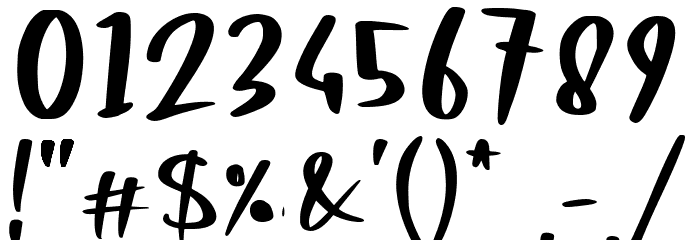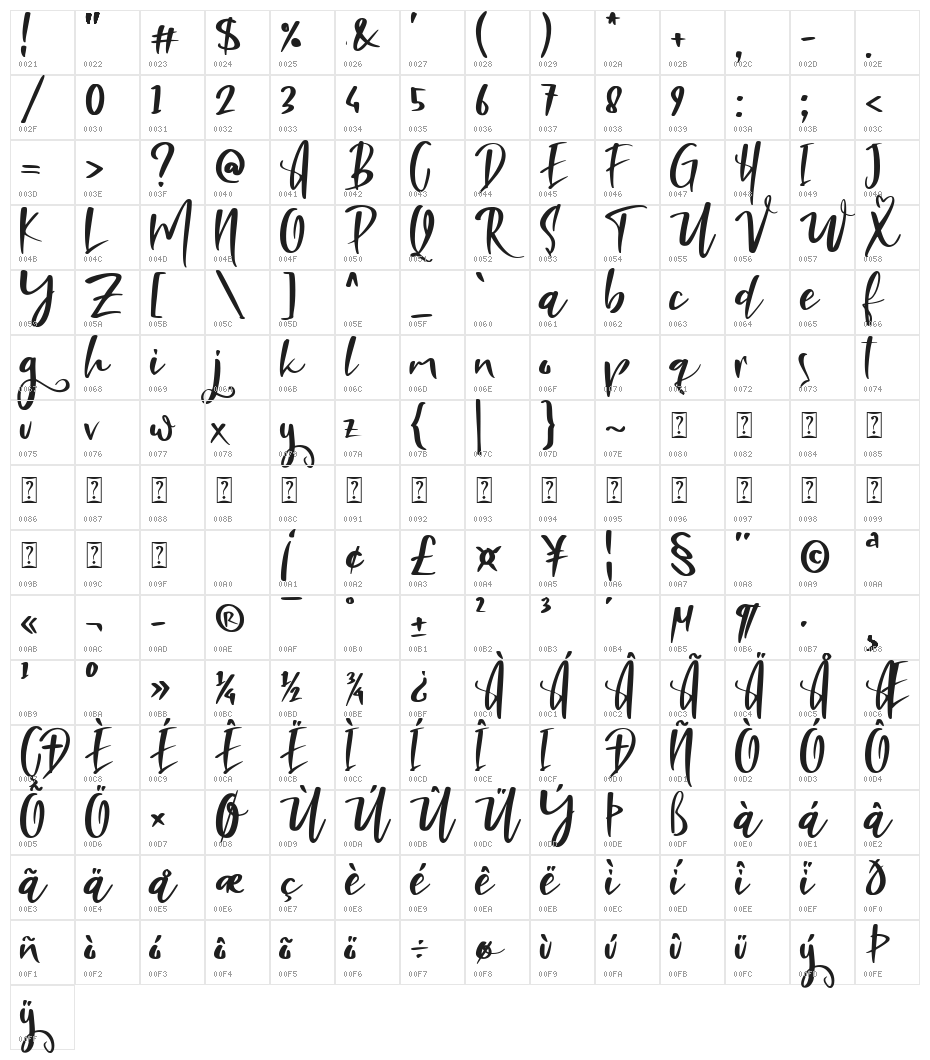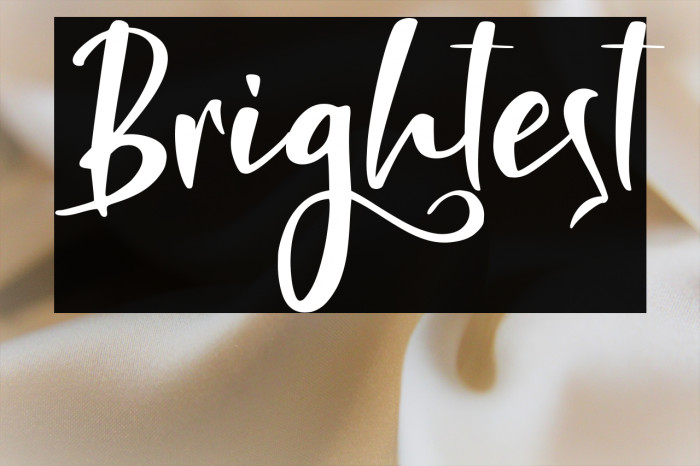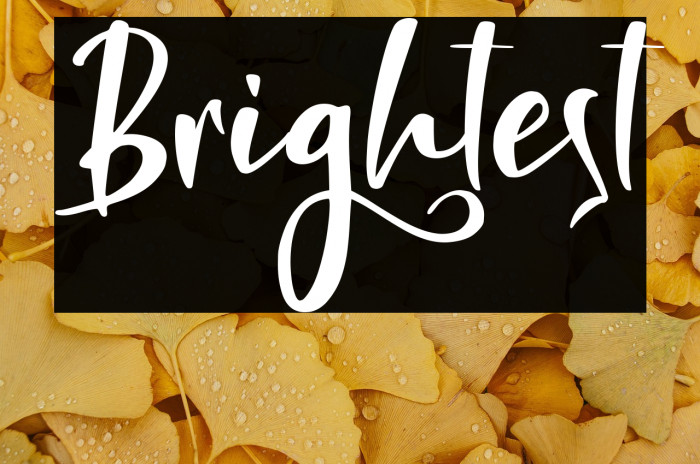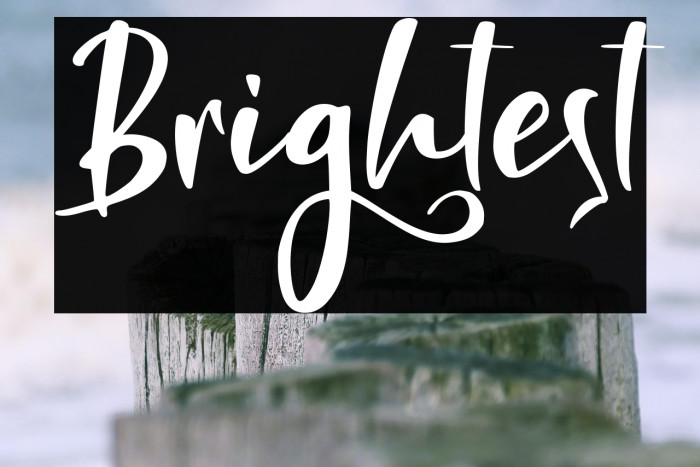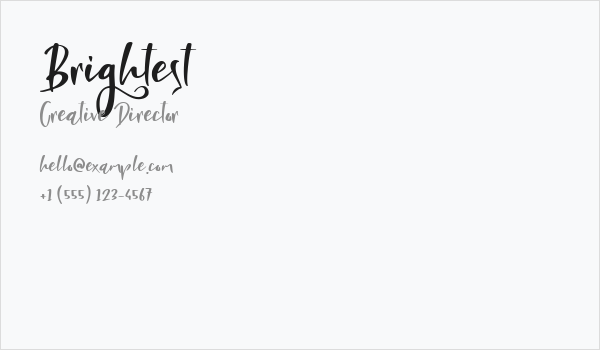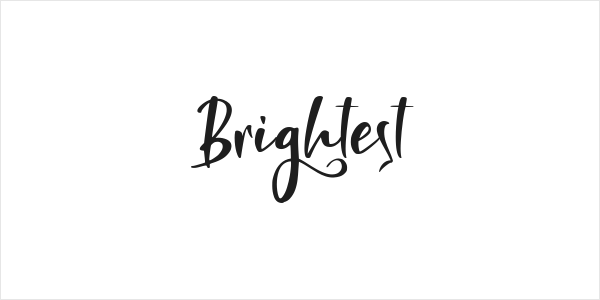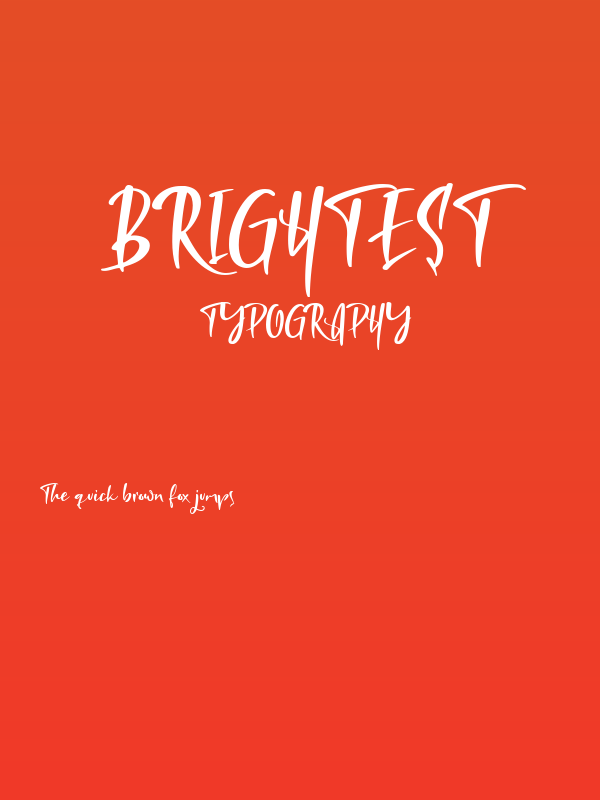
Brightest Font
Brightest Description
This font features a lively and expressive handwritten style, characterized by its fluid and dynamic strokes. The uppercase letters exhibit a bold and confident appearance, while the lowercase letters maintain a playful and whimsical touch. The numerals are distinct and easy to read, complementing the overall aesthetic. Special characters are creatively integrated, adding to the font's versatility. The font's energetic and artistic flair makes it suitable for projects that require a personal and engaging touch.
| Proposed Projects | Ideal for greeting cards, invitations, branding, and social media graphics. |